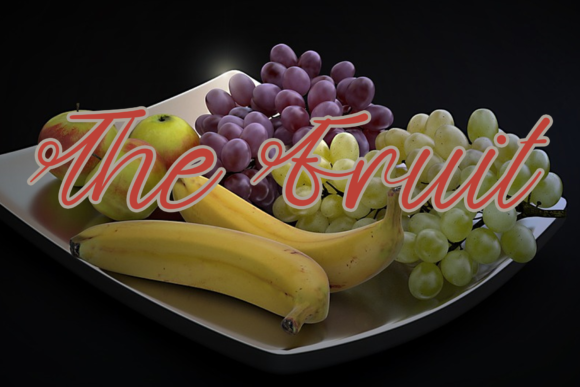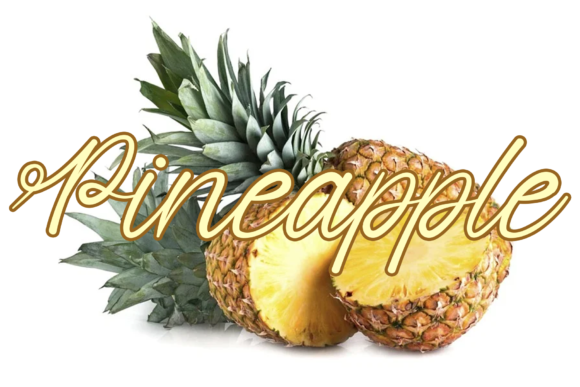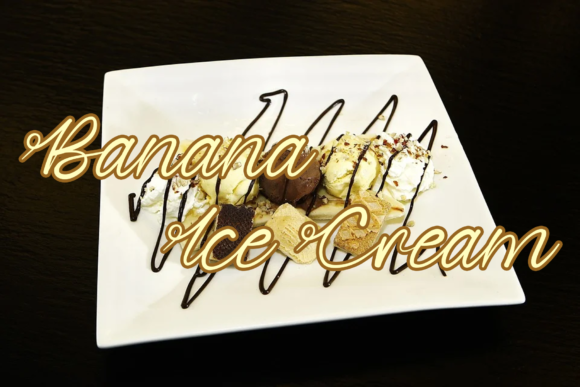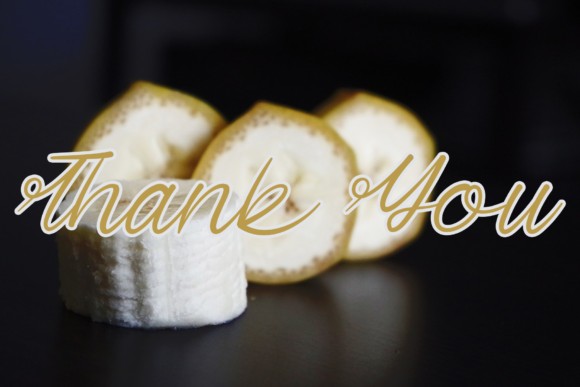
The Sweetest Addition to Your Design Palette
Have you ever been brainstorming a new project, and suddenly, a burst of creativity hits you? The ideas start flowing, and you can almost see the design unfold before your eyes. It’s that magical moment when everything comes together, and you know you’re onto something special.
For designers, finding the right font can be the key to unlocking that creative spark. That’s where Banana Font comes in – a delicate, flowing handwritten font that’s as sweet as it is versatile. Designed to enhance the beauty of your projects, Banana Font is the perfect addition to any design palette. Its balanced and varied strokes make it a valuable tool for adding a touch of elegance and whimsy to your work.
Banana Font Key Features
- Unique Characteristics: Banana Font features a distinctive, curved shape and a warm, inviting tone, making it ideal for use in food, beverage, and lifestyle branding.
- Font Styles: Banana Font includes multiple font styles, including Regular, Bold, Italic, and Bold Italic, providing users with a range of options for creative expression.
Banana Font Review
First of all, I want to say that the Banana Font is a unique and quirky choice for a font. It’s not for everyone, but if you’re looking for something that stands out, this might be the font for you. ✨ The font’s rounded edges and curved lines give it a friendly, approachable feel that’s perfect for kid-friendly brands or playful marketing campaigns. ✨ I also appreciate the font’s versatility – it’s available in a range of weights and styles, making it easy to customize to suit your needs.
However, there are some limitations to the Banana Font that you should be aware of. ⚠️ For one, the font’s rounded edges can make it difficult to read at smaller sizes, especially in digital formats. ⚠️ Additionally, the font’s playful feel can sometimes come across as immature or unprofessional, which may not be suitable for all brands or industries.
Overall, I think the Banana Font is a fun and creative choice that’s perfect for the right project. If you’re looking for a font that will add a touch of whimsy to your design, this might be the perfect fit. However, if you’re looking for a more traditional or professional font, you might want to consider other options.
- Unique, rounded design
- Available in a range of weights and styles
- Perfect for kid-friendly brands or playful marketing campaigns
- Can be difficult to read at smaller sizes
- May come across as immature or unprofessional
The Banana Font is ideal for:
1. Branding and logo design.
2. Food and beverage packaging.
3. Children’s educational materials.
4. Social media graphics and advertisements.
Tips for Getting the Most Out of the Banana Font
1. Experiment with different font sizes and colors to create visual interest.
2. Pair the Banana Font with other playful fonts to create a unique look.
3. Use the Banana Font in conjunction with bold and italic text for emphasis.